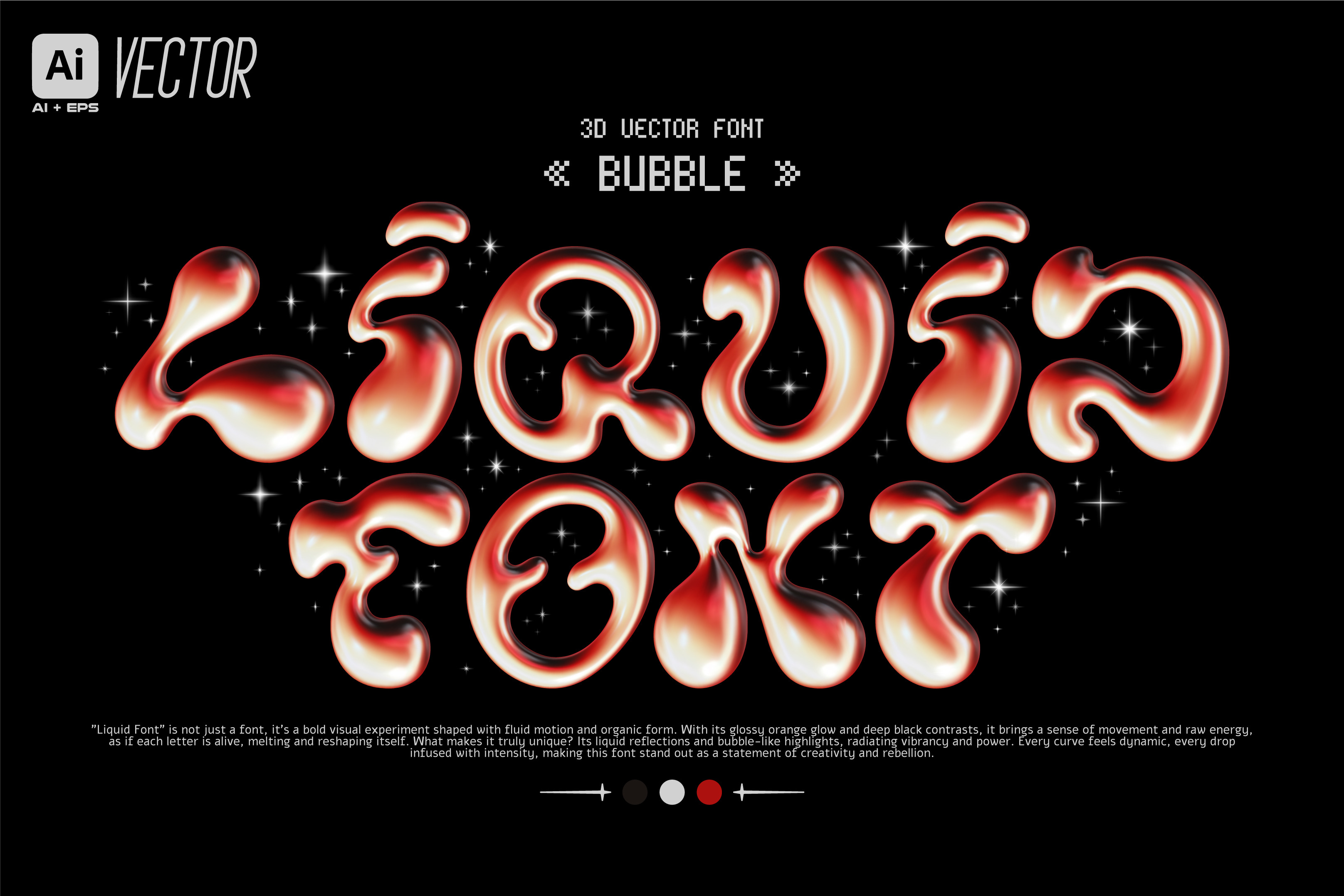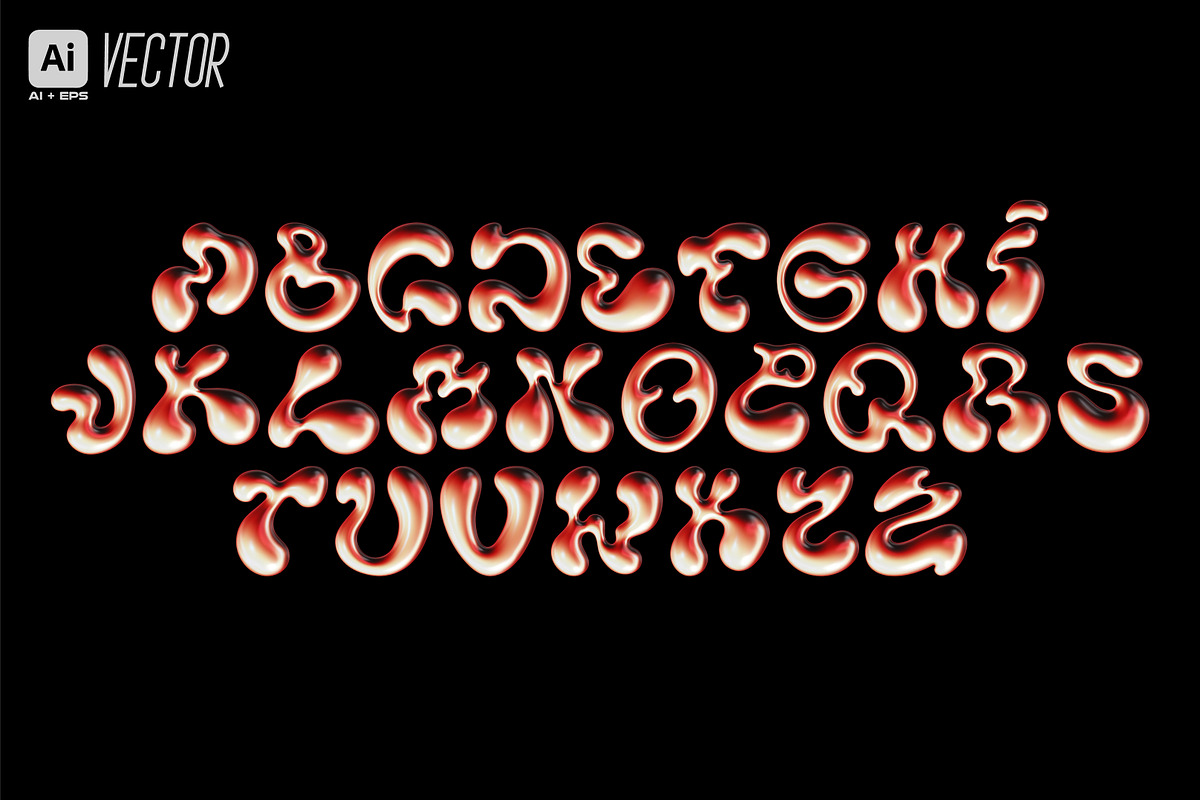
LIQUID LAVA 3D BUBBLE FONT VECTOR
Liquid lava font. 3D inflated bubble letters in orange fire gradient with volcanic shine, glossy molten texture, and Y2K retro display style. Vector set